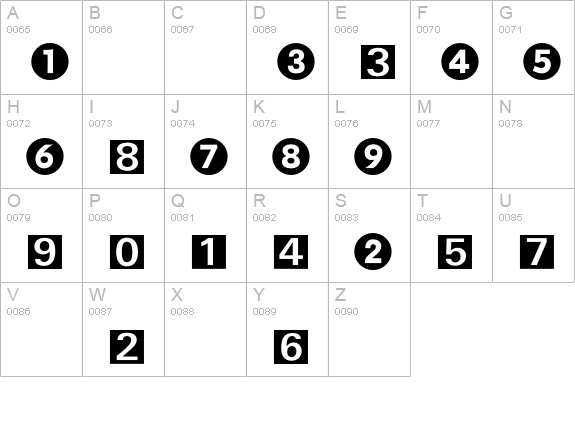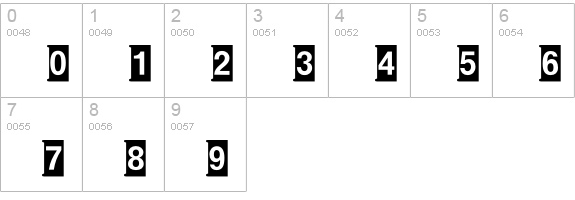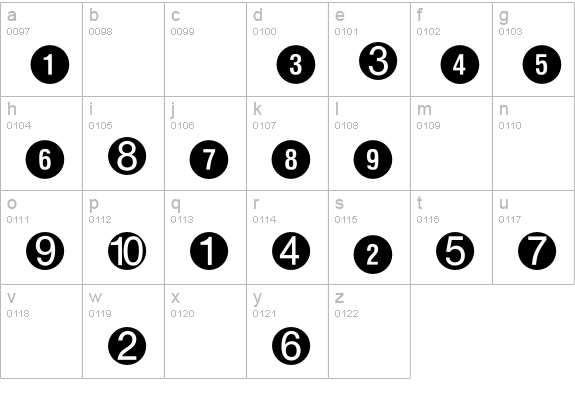
NumericsP05 Font Details
NumericsP05 is a sleek and modern font that effortlessly blends sophistication with clarity. Its clean lines and balanced proportions make it perfect for a wide range of design projects, from branding to editorial design. The geometric shapes and sharp edges give NumericsP05 a contemporary edge, while maintaining an overall sense of elegance and professionalism. What sets NumericsP05 apart is that it is available for free download at FontsMarket.com. This means that designers and creatives can easily access this versatile font without any cost, making it a valuable addition to any font library. Whether you're looking to create sleek logos, stylish headlines, or clean layouts, NumericsP05 is sure to elevate your design with its timeless appeal and versatility.